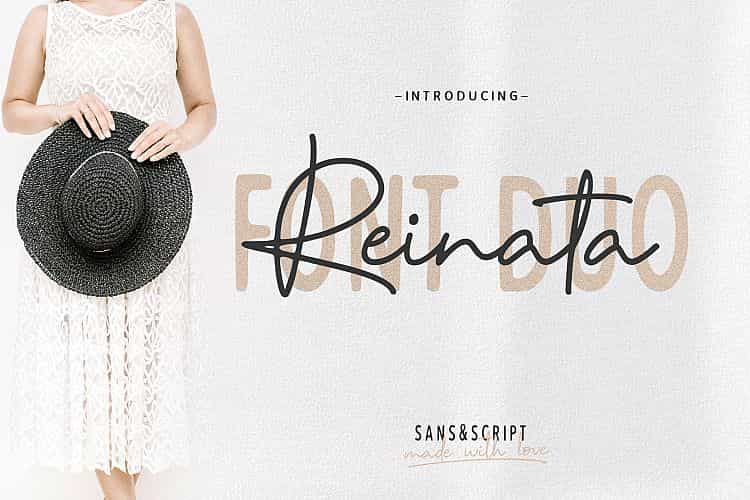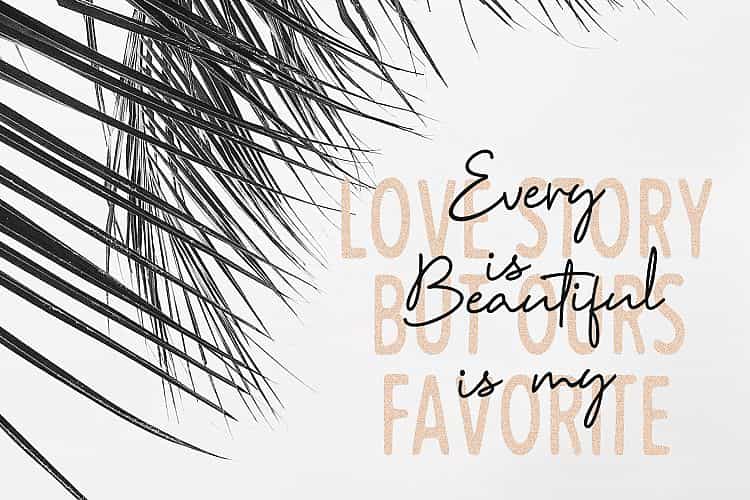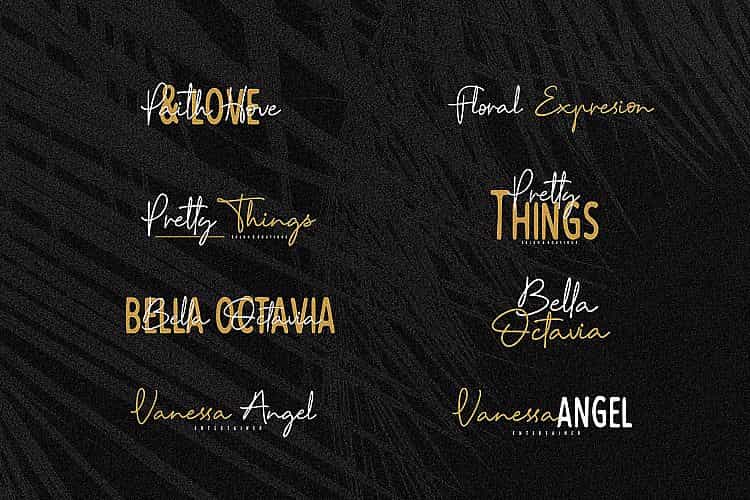
Discover Reinata Script Font, part of the Sans Serif Handwritten collection—a versatile and unique font perfect for adding a personal touch to your projects. Download it for free and enjoy crafting designs with style, from invitations to social media posts. This font is available exclusively for personal use, giving you the freedom to create without limits. Unlock your creativity with Reinata Script Font today!
Introducing Reinata Font Duo. The Reinata is a lovely handwritten typeface that will add to the handmade look of your design. It is available in a script and sans version which can be mixed to create an original design immediately. It is just great for headings, logos, invitations, t-shirt designs, greeting cards and many other things!